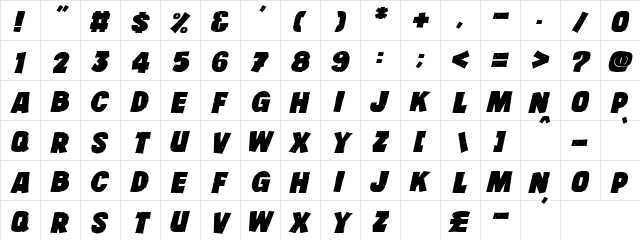
Kids Club House Cursiva
Design Context for Kids Club House Typeface
Kids Club House has an approachable, lighthearted character — its loose, expressive forms are well-suited to children's content, casual branding, and fun-first design.
Font Pairing: Pairs well with a rounded or humanist sans for body copy, maintaining the friendly tone without relying on Kids Club House to carry extended reading.
Pro Tip: Avoid using Kids Club House for long passages of text — it works best for headlines, labels, and short calls to action.